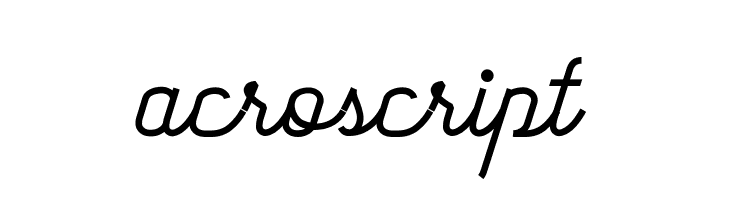
A bold, futuristic font with sharp angles and geometric shapes.
A futuristic, angular italic font with a bold, dynamic style.
A futuristic, geometric font with sharp angles and a blocky style.
A futuristic, angular italic font with a sharp, geometric design.
A bold, futuristic font with geometric shapes and a sci-fi vibe.
A bold, geometric font with a futuristic and industrial style.
A playful, spooky font with bold, rounded characters and whimsical, alien-like features.
A chaotic, hand-drawn font with irregular, jagged letterforms.
A bold, geometric font with sharp angles and a futuristic style.
A bold, futuristic italic font with sharp angles and tight spacing.
A decorative and abstract script resembling alien hieroglyphs.
Decorative script with alien-inspired, abstract glyphs.
A futuristic, geometric font with sharp angles and a sleek design.
A bold, cursive script font with a dynamic, handwritten style.
A bold, futuristic font with geometric and rounded letterforms.
A playful and decorative icon set of alien heads and UFO symbols.
A whimsical set of alien-themed icon characters with playful designs.
A whimsical, alien-themed decorative font with unique character designs.
A playful and decorative font with alien-like character designs.
A whimsical and decorative font featuring unique cartoonish characters.
A playful, cartoon-like decorative font with unique character designs.
A playful, futuristic font with bold strokes and dot connections.
A bold, spiky font with a playful and textured appearance.
A bold, futuristic font with a unique outlined, three-dimensional style.